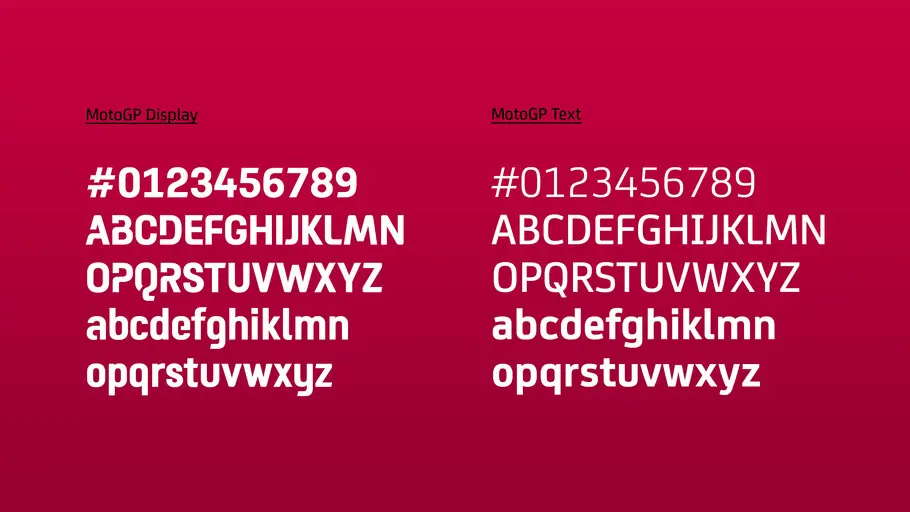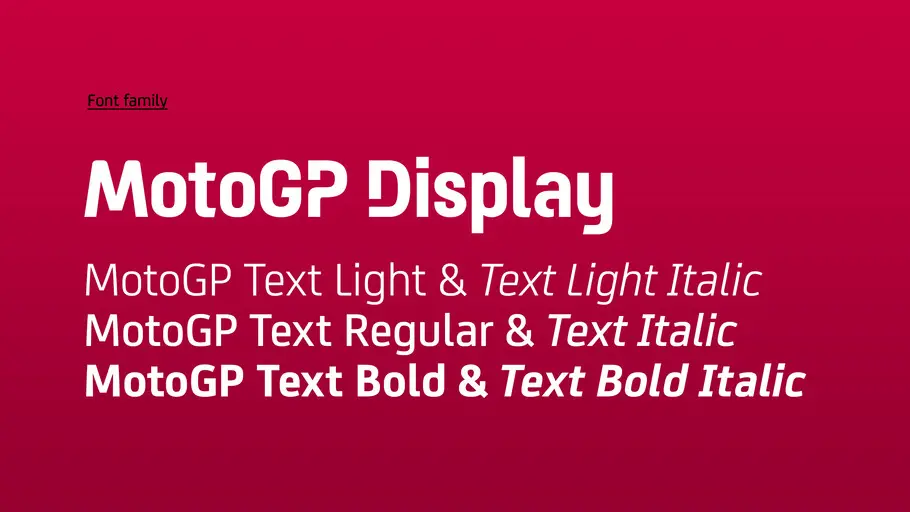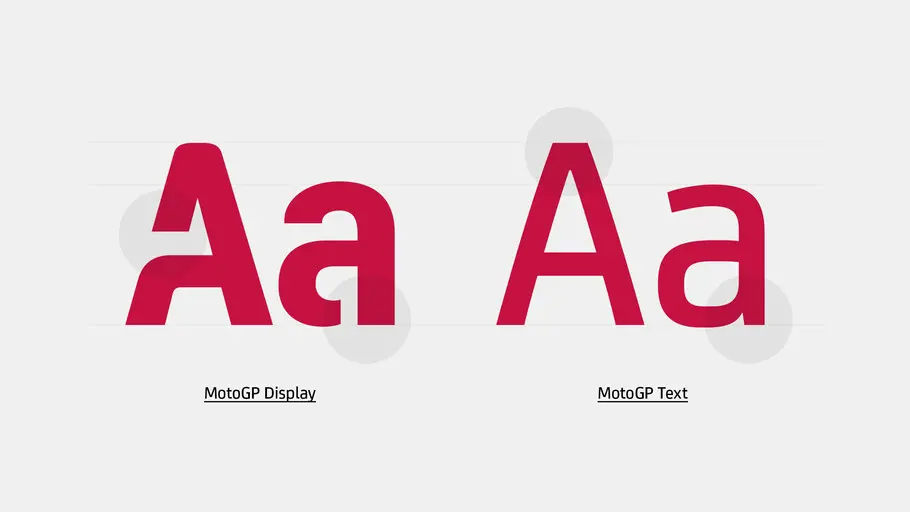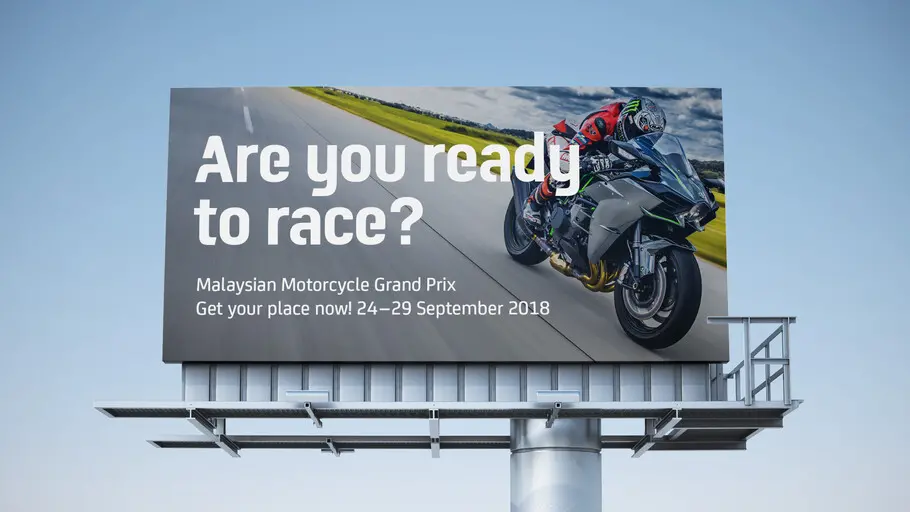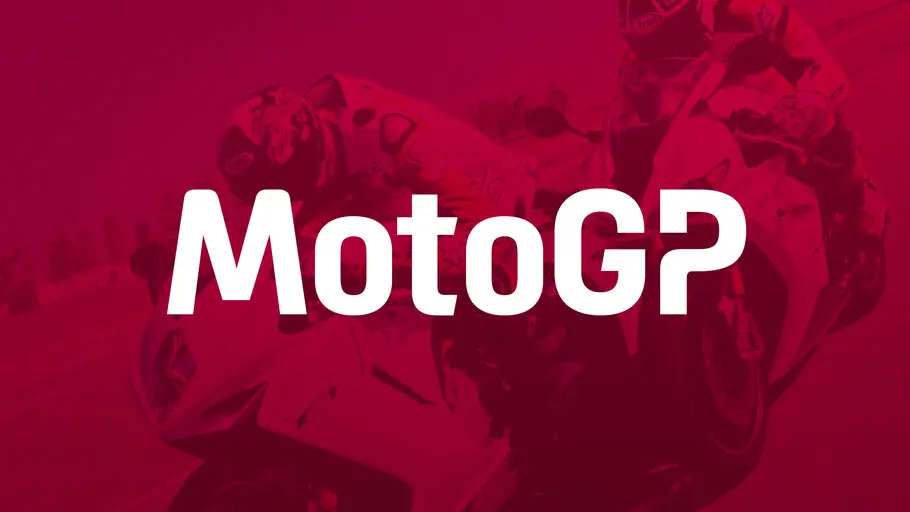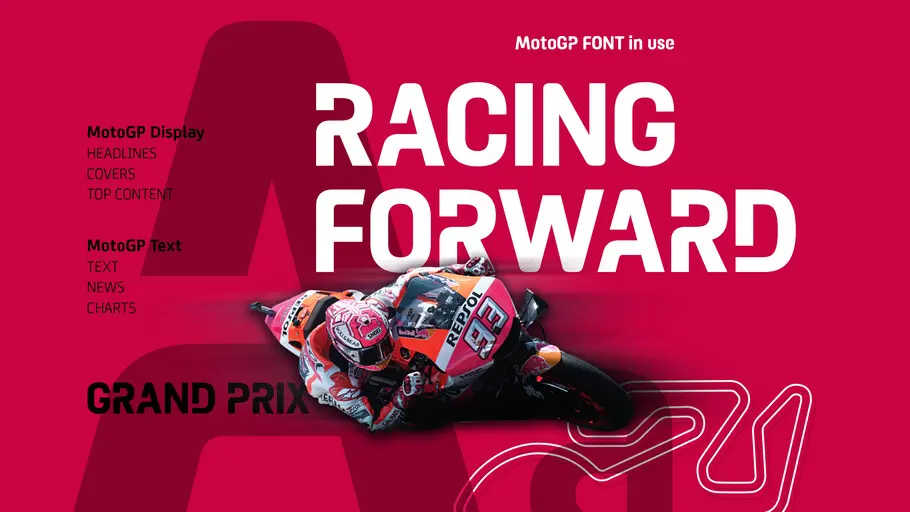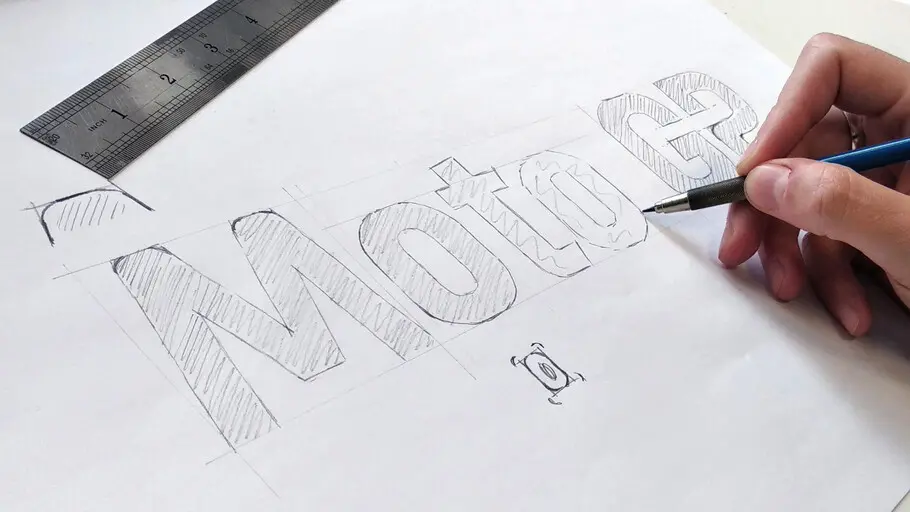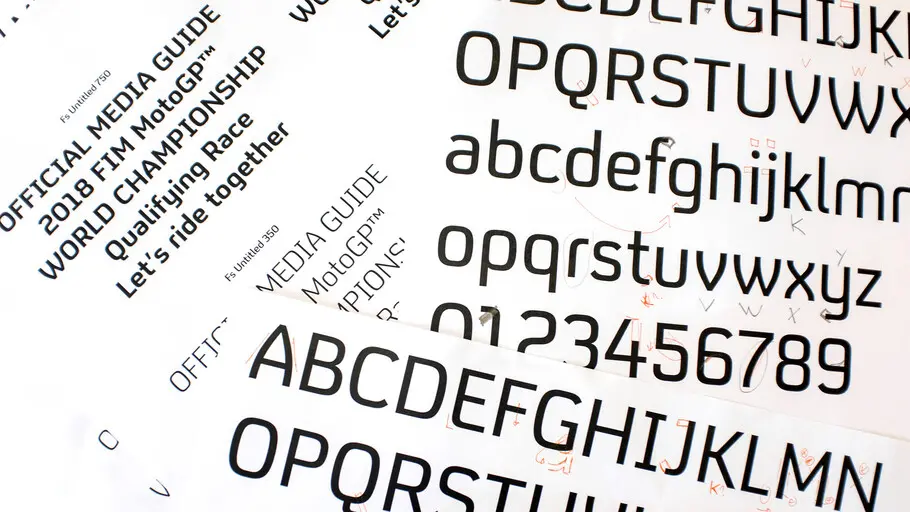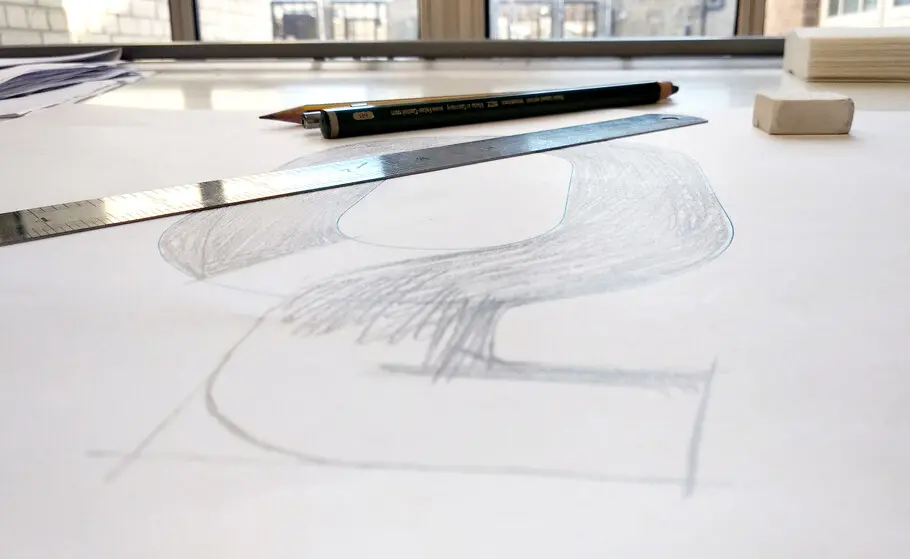
MotoGP
New custom type family for MotoGP™, the biggest motorcycle road racing competition in the world.
MotoGP™ is the best motorcycle racing show on Earth, featuring the best riders on the planet riding the most technologically advanced and fastest prototypes in the world. Fontsmith (now part of Monotype) collaborated with Dorna Sports (The MotoGP™ commercial rights holder) to design a vibrant, premium and charismatic typographic identity.
Brief.
Dorna Sports are a forward-thinking client who understand the value of, and invest resources in design, technology and communication. MotoGP™ is a global show broadcasted worldwide where the protagonists are the riders but also the bikes, the circuits and the fans. Everything about the competition is cutting-edge, entertaining and adrenalised. Dorna wanted to evolve the MotoGP™ visual identity for a fresh new look going into the next decade. Season 2020/21 is being launched with a brand-new typographic system.
Font family.
MotoGP™ uses a wide range of communication channels, with a focus on digital platforms and TV. With that in mind, the main goal was to capture the indomitable spirit of MotoGP™ and translate it into letter shapes that would render perfectly on screen.
The Fontsmith design team began by exploring what was needed for the new type hierarchy and determined that a font family structure of 6 text fonts and 1 display style could be used to create a versatile type system, enabling clear infographics and punchy headlines.
MotoGP Display.
Every custom design project starts as an exercise in how to encapsulate a brand voice in a typeface. MotoGP™ is a fearless, striking and fierce competition. We wanted the MotoGP Display face to be spikey, angular, curved and sharp — an eclectic mix of visual mechanisms to trigger an absorbing medley of feelings. The display style of a type family allows the most room to show the typographic personality of a brand. And we wanted to take advantage of that.
As a first step, the typeface structure of the display font was drawn for on-screen optimal performance. The approach was to build a boxed skeleton of very clean and simple shapes. This construction method facilitated the pixel arrangement on screen and therefore helped the letters to render clearly. Once we had a solid base, we were ready to design a tailored suit for it — and bring the brand’s personality to the design.
We looked at the heritage of the competition and applied nuances of circuit design and open track shapes to some of the characters (like the uppercase ‘Q’ and lowercase ‘e’). Starting with a subtle curvy frame, we incorporated the personality of human-designed curves and the beauty of a motor-like visual aroma into the design. The figures are a good example of bringing the tension of circuit curves to the character shapes. The numbers are beautifully simple at first sight, but a closer look reveals a subtle nod to the racetrack curves.
MotoGP Text.
MotoGP Text is based on FS Joey. This Fontsmith typeface was originally developed to be highly legible on-screen, including at very small sizes. It is corporate and not too quirky, but still has a strong character of its own, which made it a perfect starting point for the new MotoGP text font family.
Clarity is crucial when displaying a lot of information on screen. Ranking tables are full of names and timings and while the display typeface has to shine, the text cut must be appealing and very legible. We sharpened the corners, made some shapes more legible (e.g. ‘g’) and more modular, clean and sporty overall (e.g. ‘8’). The text font family consists of 3 upright fonts and 3 italics.
“Creation of the MotoGP™ fonts has been a smooth journey from the very beginning thanks to the experience and professionalism of the Fontsmith team at each step,” said Nuria García, MotoGP™ Brand Identity & Design Coordinator.
“To have corporate typeface is a great achievement for our championship because it will be a common element in all the applications of the brand and will contribute to its strength. We are very satisfied that Fontsmith managed to capture the “spirit of racing” in the personality of the typeface. We hope to make the typographic family grow in the future and keep our partnership with Fontsmith for many years.”
The new MotoGP™ brand typeface is ready to ride and race. We can’t wait to see it being used in one of the most exciting sports competitions in the world.
“We are very satisfied that Fontsmith managed to capture the “spirit of racing” in the personality of the typeface. We hope to make the typographic family grow in the future and keep our partnership with Fontsmith for many years.” —Nuria García (MotoGP™ Brand Identity & Design Coordinator).
Born in São Paulo, Brazil, Senior Type Designer Fernando Mello went to the UK to study in the MA Type Design program at the University of Reading in 2006, from which he was approved with distinction. He soon joined Fontsmith, where for over a decade he has been involved in the creation of several innovative, functional and well-constructed typefaces. Fernando joined the Monotype Studio in January 2020.